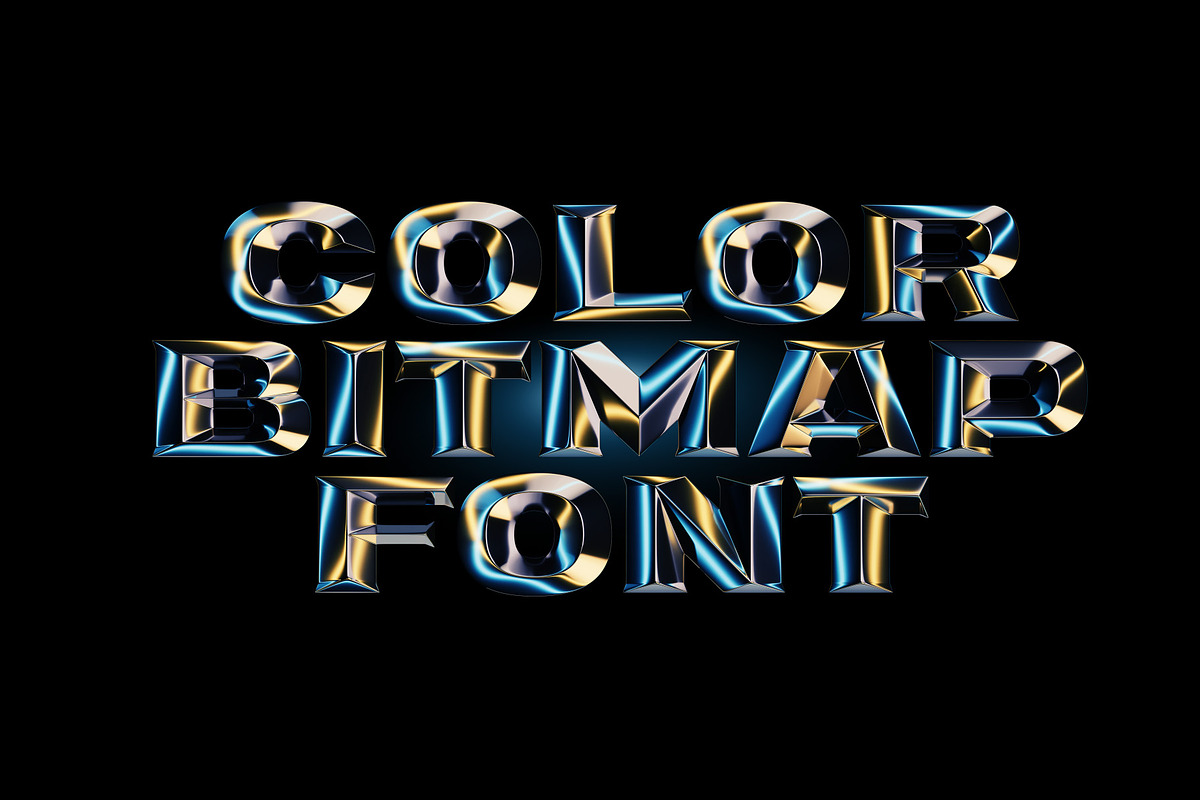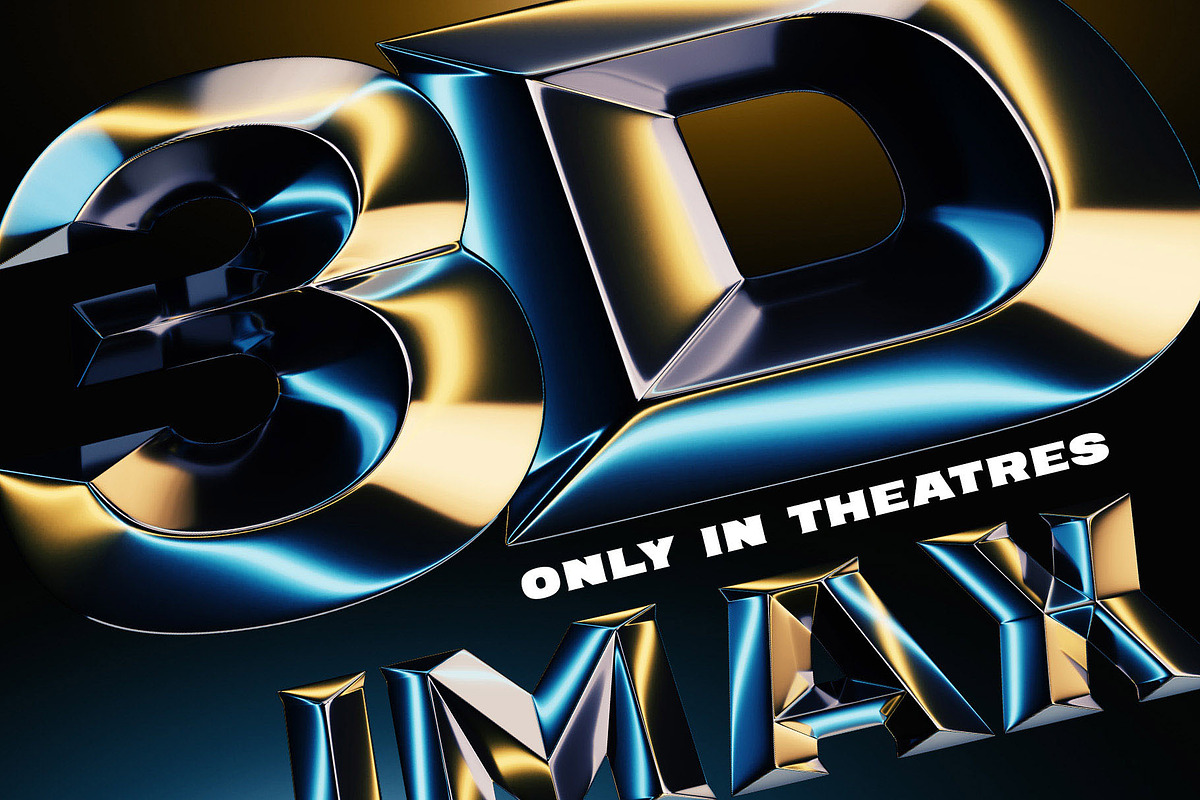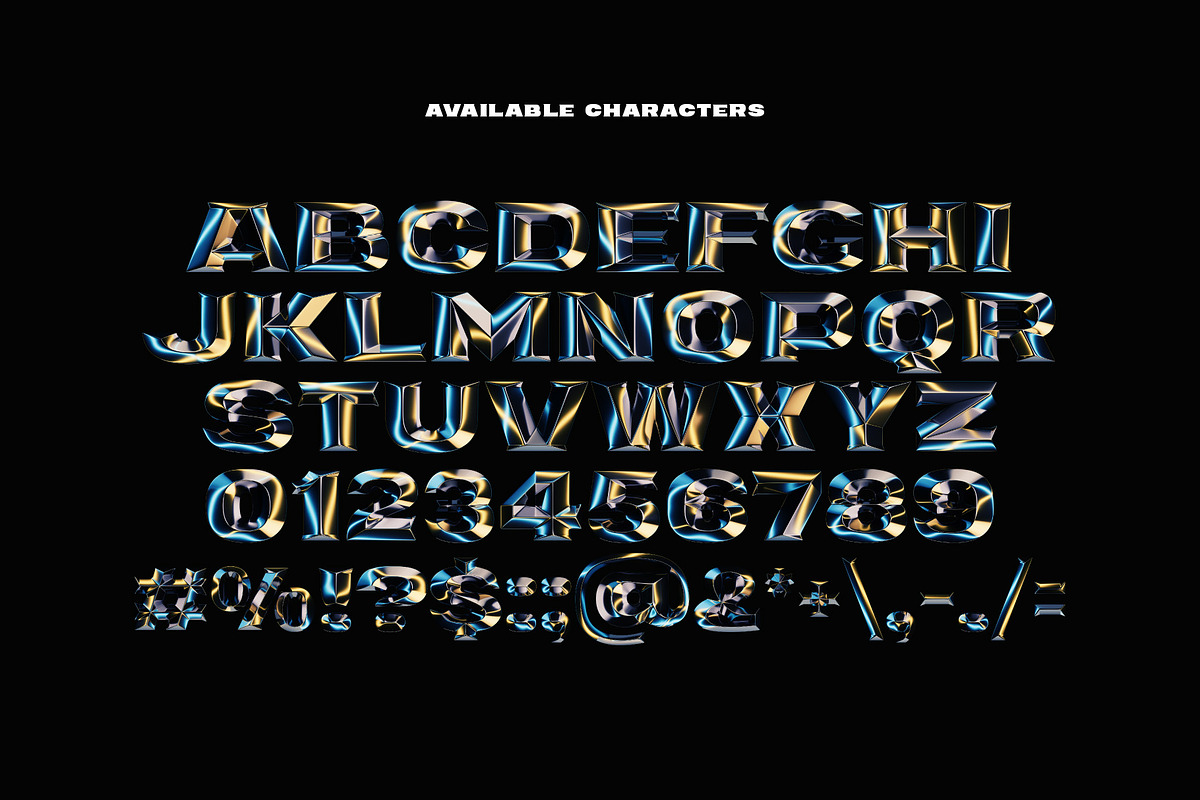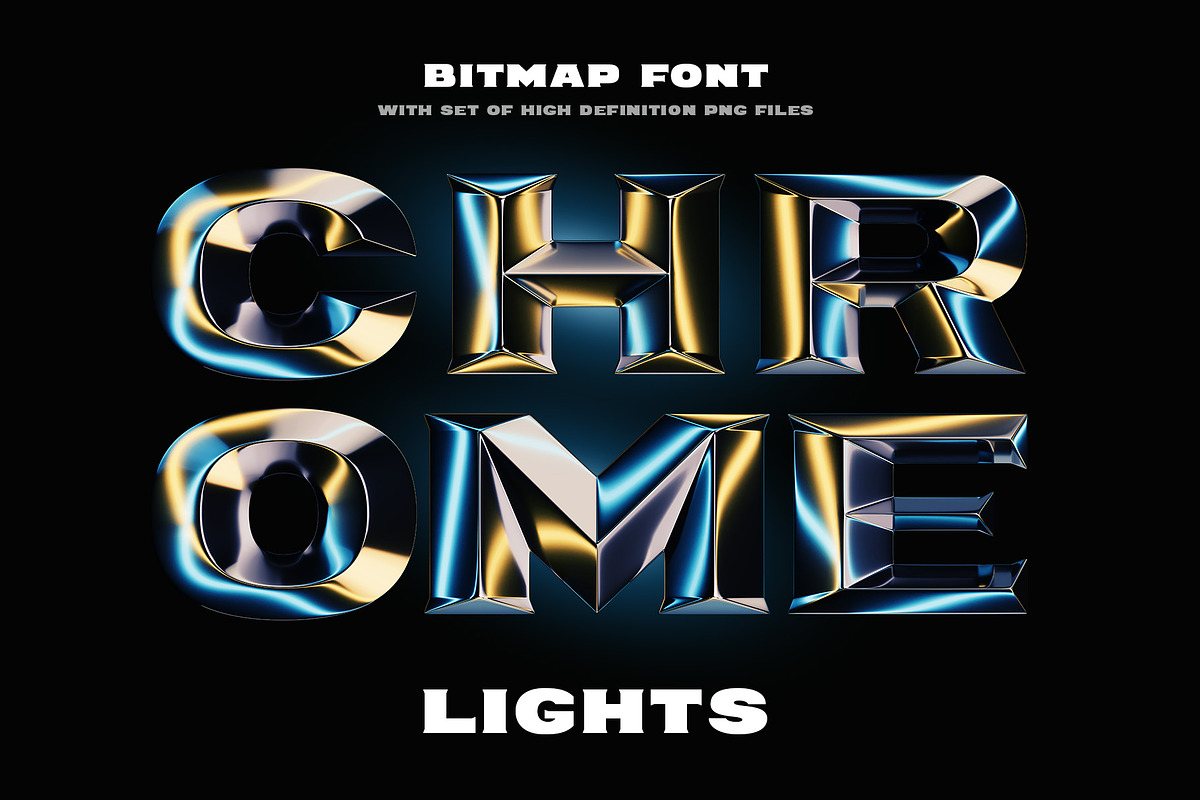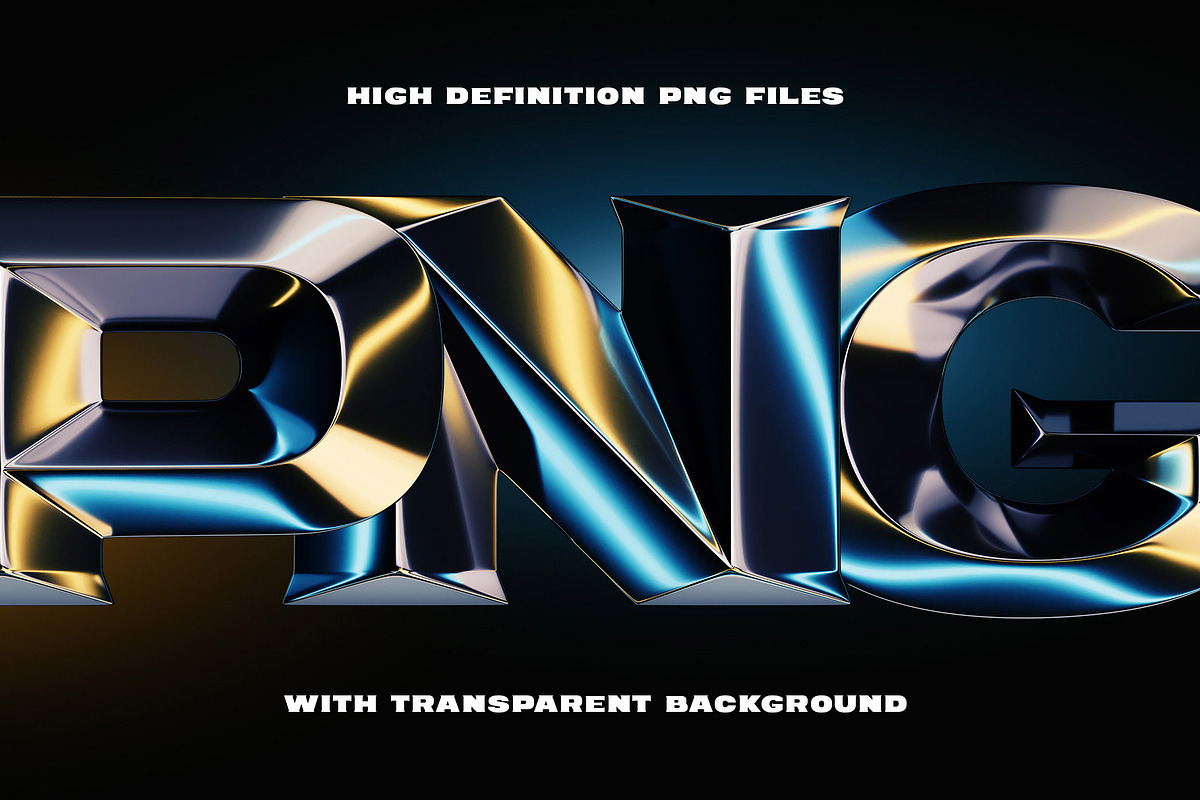
Chrome Lights - Bitmap Color Font
Hello! Presenting a bright font set – Chrome Lights. It's a 3d rendered typeface with bold beveled shape and shining reflecting surface. First of all it's a color bitmap OpenType-SVG font that can be used as a usual OTF font. Also a set of full resolution PNG files with transparent background is included. Consider that only English language and basic punctuation is supported, please check out the screenshot with all available characters.